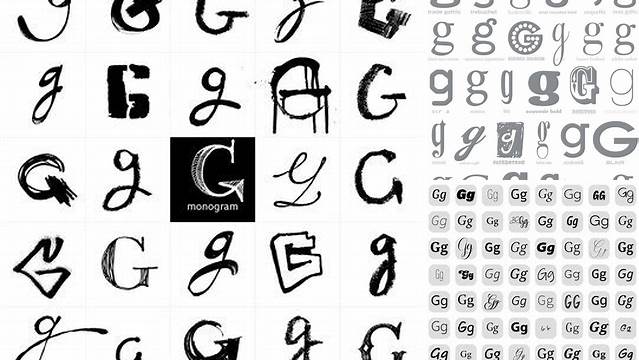
Letter G Font Generator: Cool Styles & Design Tips
Hey guys! Ready to dive into the awesome world of fonts? We're going to explore the letter G in different fonts generator, a tool that lets you see how the letter 'G' looks in tons of different styles. This is super handy for designers, writers, or anyone who just loves cool fonts. Let's break it down and see what makes this generator so cool.
Letter G Font Styles: Exploring a World of Typography
First things first, why is the letter G in different fonts generator so useful? Think about it: the letter 'G' can look wildly different depending on the font. Some are sleek and modern, others are fancy and old-school, and some are just plain quirky. This generator gives you a quick visual preview of all these styles. You can see the letter 'G' in everything from elegant serifs to bold sans-serifs, playful scripts, and even some totally out-there experimental fonts. The value here is in saving you time and giving you inspiration. Instead of manually scrolling through hundreds of fonts in your design software, you can instantly compare the 'G' in various styles and see what best fits your project. This is super helpful when you're trying to nail down a specific aesthetic, like when designing a logo, creating social media graphics, or even just choosing a font for a personal project. Finding the perfect 'G' can totally change the vibe of your design! And let's be real, fonts are a cornerstone of visual communication. Having a tool like this at your fingertips can dramatically improve your creative process. Imagine being able to instantly visualize how your chosen letter will look, rather than having to install and preview each font individually. This tool does exactly that! The implications for design efficiency and creative exploration are huge, as you can quickly see the full range of possibilities and pick the one that sings to you.
Online Font Generators: Convenience at Your Fingertips
Okay, so what makes an online font generator for the letter 'G' such a game-changer? Simply put, it’s all about convenience. These generators are usually super easy to use, requiring you to input the letter 'G' and immediately see it rendered in various fonts. No downloads, no installations, just instant gratification. This means anyone with an internet connection can jump in and experiment. The accessibility of online tools levels the playing field, making professional-level design resources available to everyone. You can access them from your phone, tablet, or laptop, meaning you have typography power wherever you go. These tools are particularly valuable for those who are new to design, or for those who need to experiment with quick design concepts without committing to the hassle of installing fonts. Plus, many of these generators are totally free, which makes them a fantastic resource for students, freelancers, and small business owners operating on a budget. Beyond just the basic functionality, many generators also offer a range of additional features. These may include the ability to change the font size, color, or background, allowing for greater customization. Some generators even allow you to input entire words or phrases, allowing you to see how the 'G' interacts with other letters, which is critical for judging the overall look and feel of a design. In a world where design trends constantly evolve, the accessibility and ease of use of these online tools are truly invaluable. You can quickly explore different styles, stay ahead of the curve, and impress everyone with your font-savvy designs.
Free Font Generators: Exploring Typography Without Spending a Dime
Free resources are always a win! Luckily, there are a ton of free letter G font generators available online. This opens the door for everyone, regardless of budget, to play around with fonts. Websites and design platforms often offer these generators as a free service to attract users. This makes them a fantastic resource for aspiring designers, hobbyists, and anyone looking to spice up their personal projects. You can experiment with different font styles, from classic serifs to trendy modern fonts, without spending a penny. This hands-on approach allows you to learn about typography, develop your eye for design, and find the perfect font for your needs. The best part? There are no barriers to entry. All you need is an internet connection. You can dive in, start generating, and instantly see how different fonts transform the letter 'G.' This accessibility is a game-changer for creative exploration. These free tools typically offer a user-friendly interface, making them easy to navigate even for beginners. The ability to quickly preview and compare various font styles gives you the freedom to experiment without limitations. The lack of financial commitment also encourages you to try out fonts that you might not have considered otherwise. This can lead to discoveries that you never would have made if you were hesitant about purchasing fonts. The benefits extend beyond personal use. These free generators are also great for educational purposes. Teachers and students can use them to teach and learn about typography, explore different font families, and create engaging design projects without any financial constraints. The democratization of design resources is a powerful thing, and free letter G font generators are a perfect example of this.
Font Preview Tools: See Before You Commit to a Font
Before you commit to a font, use a font preview tool! The letter G font generator acts as a fantastic preview tool. It allows you to see what the letter 'G' looks like in various fonts, which is super helpful before downloading or purchasing a font. This saves you from potential disappointment and saves you a lot of time. You can instantly see if a font’s style suits your design project. This is useful whether you're creating a logo, designing a website, or crafting marketing materials. By previewing the letter 'G,' you get a feel for how the font will appear, its readability, and its overall character. It's like trying on clothes before you buy them – you want to ensure the fit is right. These preview tools often include options to customize the size and color of the letter 'G,' which helps visualize the font in different contexts. You can see how it will look against various backgrounds and with other design elements. These tools become even more valuable when working with complex or unusual fonts, where the visual impact can be difficult to predict without a preview. This can also help you narrow down your options and make informed decisions. This can prevent potential design errors and ensure that the font you choose enhances your project's overall aesthetic appeal. From a professional design perspective, these tools allow you to present various font options to clients in a way that is easily understandable. This allows for open discussion and makes design choices more collaborative. The ability to quickly evaluate the appearance of the letter 'G' ensures that your design projects are both visually appealing and functional.
Choosing the Right Font: Tips for Letter G in Your Designs
Choosing the right font with your letter G can make or break your design. So, what's the secret? First, consider your project's purpose. Is it formal, friendly, or edgy? The font should match this. For a classic look, go with a serif font. For a modern vibe, try a sans-serif. Secondly, think about readability. The letter 'G' can be tricky in some fonts, with tight curves or unusual shapes. Make sure it's clear and easy to read, especially if it’s a key part of a word or headline. Third, consider the overall design. Does the font complement your other design elements? The perfect font choice is a balance of style, readability, and harmony with the rest of your project. For example, a business logo may require a clean, professional font, while a children's book might benefit from a more playful style. The key is to choose a font that effectively conveys your message and resonates with your target audience. Before you finalize, consider how the letter 'G' looks in combination with other letters. Some fonts may look great in isolation but clash when forming words. Test the font out with a few key words or phrases to see how it performs. The right font makes your message shine, so take the time to get it right!
Serif vs. Sans-Serif Fonts: Finding the Right 'G' Style
When it comes to the letter G, the choice between serif and sans-serif fonts is a big deal. Serif fonts, those with the little 'feet' or strokes at the ends of the letters, give a classic, elegant vibe. They often feel traditional, trustworthy, and refined. Think of fonts like Times New Roman or Garamond. The 'G' in a serif font usually has a loop at the bottom, which gives it a distinct character. On the other hand, sans-serif fonts, without those strokes, have a modern, clean feel. They look contemporary, and they are ideal for digital displays. Common examples include Helvetica or Arial. The 'G' in a sans-serif font usually is rounder. The best choice depends on your project. Serifs often work well for print publications and formal communications, while sans-serifs are great for websites and anything that needs a contemporary look. Each style gives the letter 'G' a unique personality, which affects the overall feeling and impact of your design. Understanding the nuances of these styles is key to making your design choices. Each choice contributes to the overall visual appeal of your project, and by understanding the basic principles of these font types, you are that much closer to making a great design.
Font Pairing with the Letter G: Harmonizing Your Typography
Font pairing with the letter G is all about creating harmony! You want fonts that work well together, complementing each other without clashing. When choosing a font for your 'G,' think about what other fonts you'll use. Here are some tips. First, contrast can be your friend. If you use a strong font for the 'G,' a simpler font for the rest of your text can provide balance. Second, choose fonts from the same font family. Different weights (like bold or italic) from the same family usually work seamlessly. Third, look for fonts with similar characteristics. Are they both rounded, angular, or geometric? This helps create visual coherence. You want to make sure that the fonts complement each other to draw the user in. Font pairing is like creating the perfect outfit – you want the pieces to look great on their own, but also enhance each other when combined. You can play around and experiment. Ultimately, the best pairings will depend on your project's needs and your personal style. The goal is to enhance the overall user experience and communicate your message effectively.
Typography Best Practices: Ensuring Readability and Impact
Let's talk typography best practices. Making your letter G and other text readable is crucial! Here are some tips to keep in mind. First, choose a font that is legible. Some fonts are just naturally easier to read than others. Second, consider the font size. Make sure your text is big enough to read without straining your eyes. Third, watch your line spacing (leading) and letter spacing (kerning). These settings can greatly impact readability. Fourth, think about contrast. Make sure your font color contrasts well with your background. White text on a black background is usually easier on the eyes than dark gray on a light gray background. Fifth, align your text properly. Avoid centering large blocks of text, as this can make it harder to read. Sixth, use hierarchy. Headings and subheadings should stand out to guide the reader. These best practices will make your design projects more effective and engaging, helping your message come through loud and clear. The goal here is to make the overall design seamless, easy to read, and enjoyable for your audience.
Utilizing the Letter G Font Generator for Design Projects
Alright, how can you use the letter G font generator for your design projects? First, use it for inspiration. See a font that sparks your creativity? Use it as a starting point. Second, narrow down your font choices. Instead of scrolling through thousands of fonts, use the generator to quickly preview the 'G' in different styles and see which ones you like best. Third, experiment with different design concepts. You can create a mood board with different 'G' styles to explore how they feel. Consider how each font style affects the mood and messaging of your project. Fourth, present options to clients. If you're working with a client, use the generator to show them various options and get their feedback quickly. Use the generator as a tool for creative problem-solving. The benefits of using the letter G generator can be seen in the fact that you save time, improve design consistency, and better communicate the design aesthetic you have in mind for your project. This is a tool that simplifies and improves your creative workflow. It makes it easier to explore, make choices, and make your designs truly shine.
Emerging Font Technologies: What's on the Horizon
Emerging font technologies are shaping the future of design. One trend is variable fonts, which offer more design flexibility. Variable fonts are single font files with multiple variations. This means one file can be used instead of a set of different weights and styles. This improves web performance. Another trend is color fonts. Color fonts allow for more creative expression. This enables designers to create designs that are both beautiful and practical. More fonts are being designed to be responsive. The font will automatically adjust to different screen sizes and devices. These technologies will empower designers to create more interactive, accessible, and visually appealing designs. The future will bring more innovation to the design industry. By adopting these emerging technologies, designers can stay competitive and embrace this new era of design.